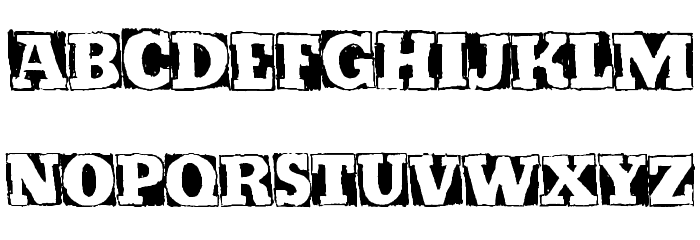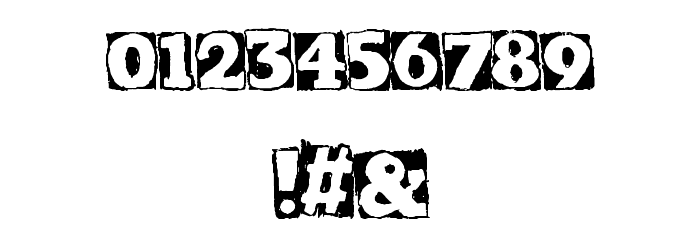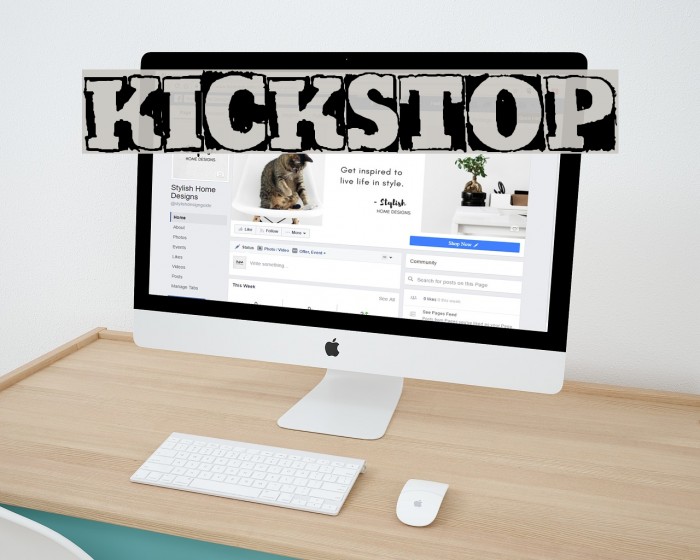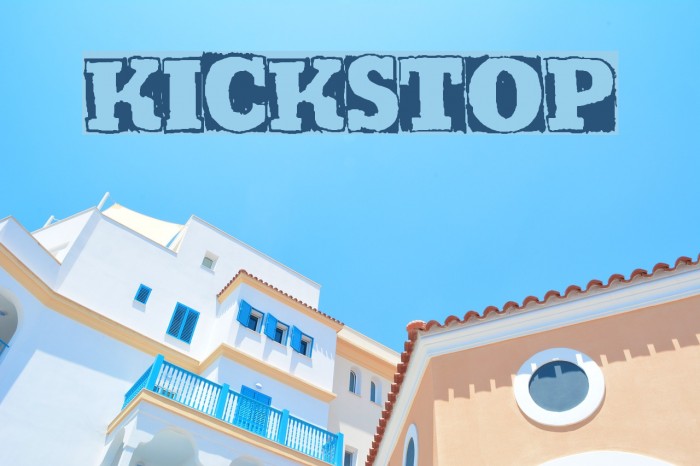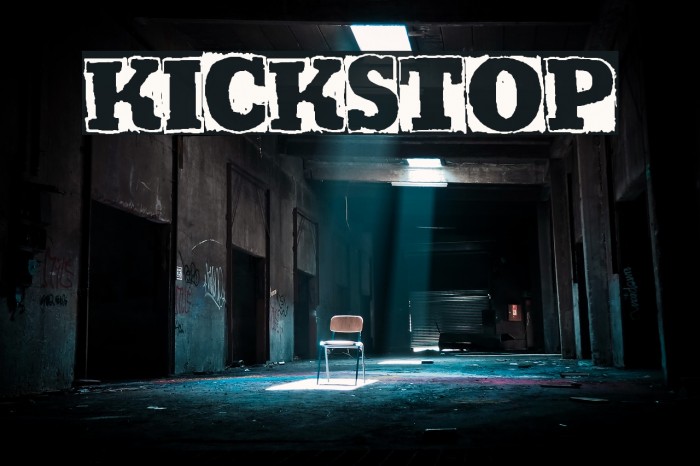
Kickstop Font
This font features a bold, distressed style with a rough, textured appearance. Each character is enclosed in a box-like structure, giving it a unique, rugged look. The uppercase and lowercase letters share a similar design, emphasizing a strong, impactful presence. The numbers and special characters maintain the same distressed aesthetic, ensuring consistency across all glyphs. This font's design is reminiscent of vintage, industrial themes, making it ideal for projects that require a bold, eye-catching typeface.
- Proposed Projects: Ideal for posters, album covers, branding for edgy or industrial-themed products, and any design that requires a strong, impactful typeface.
- Overall Style: Vintage